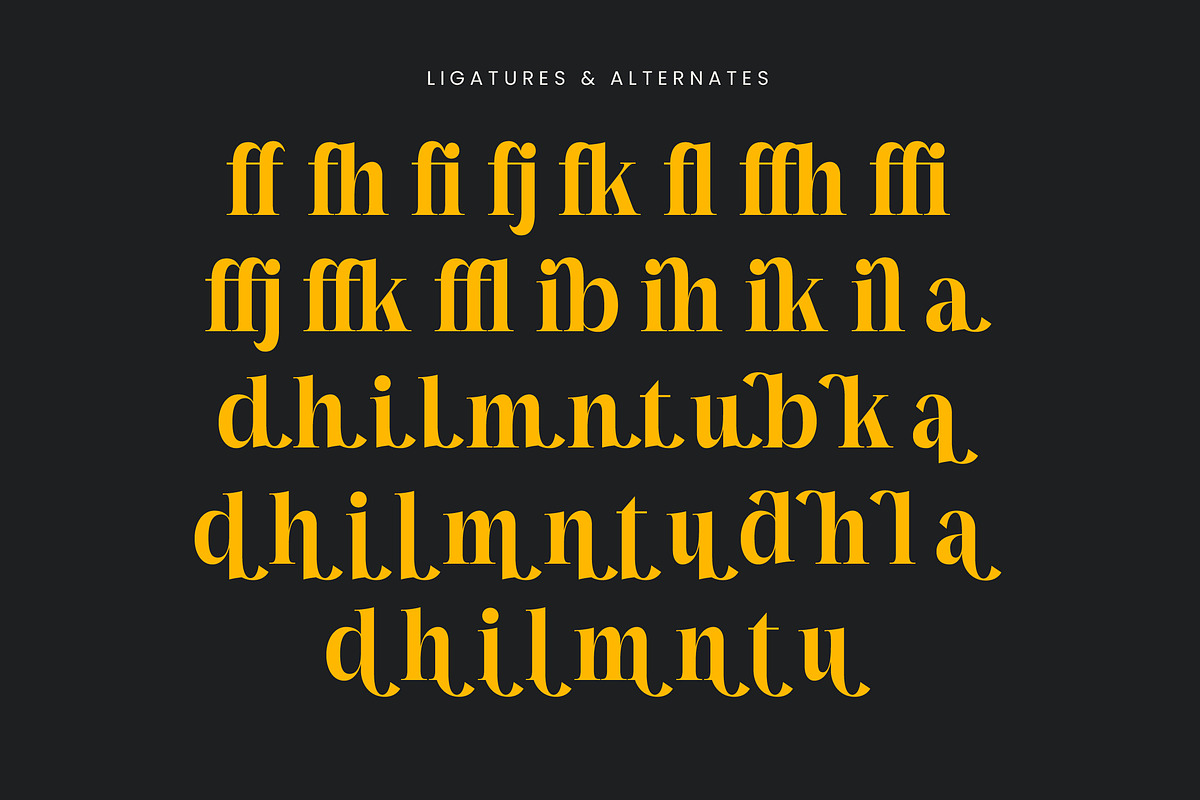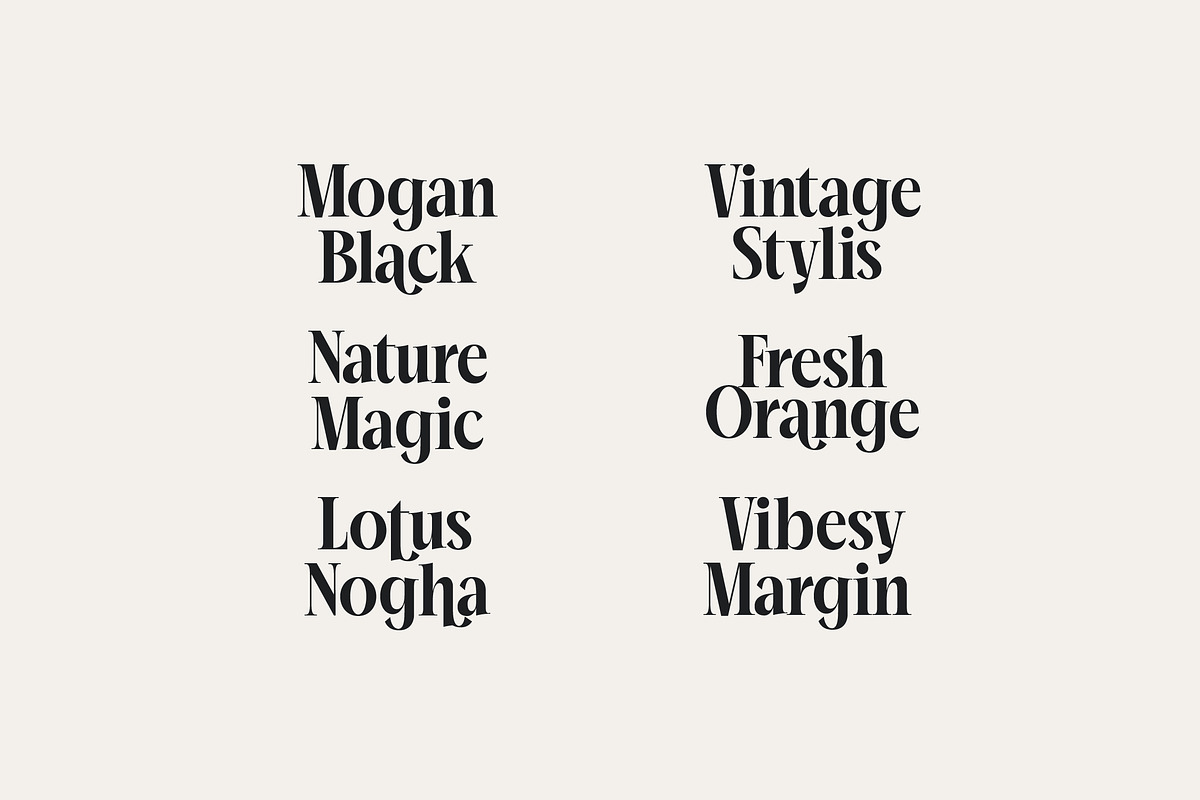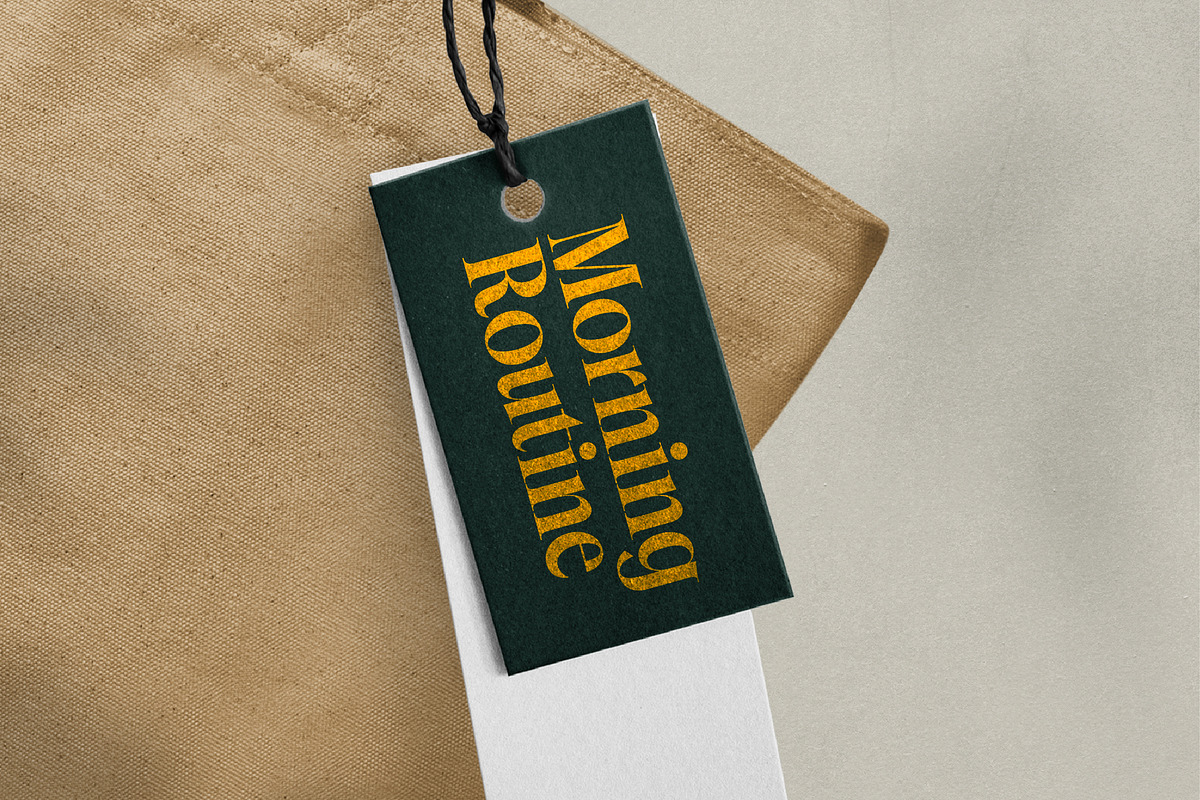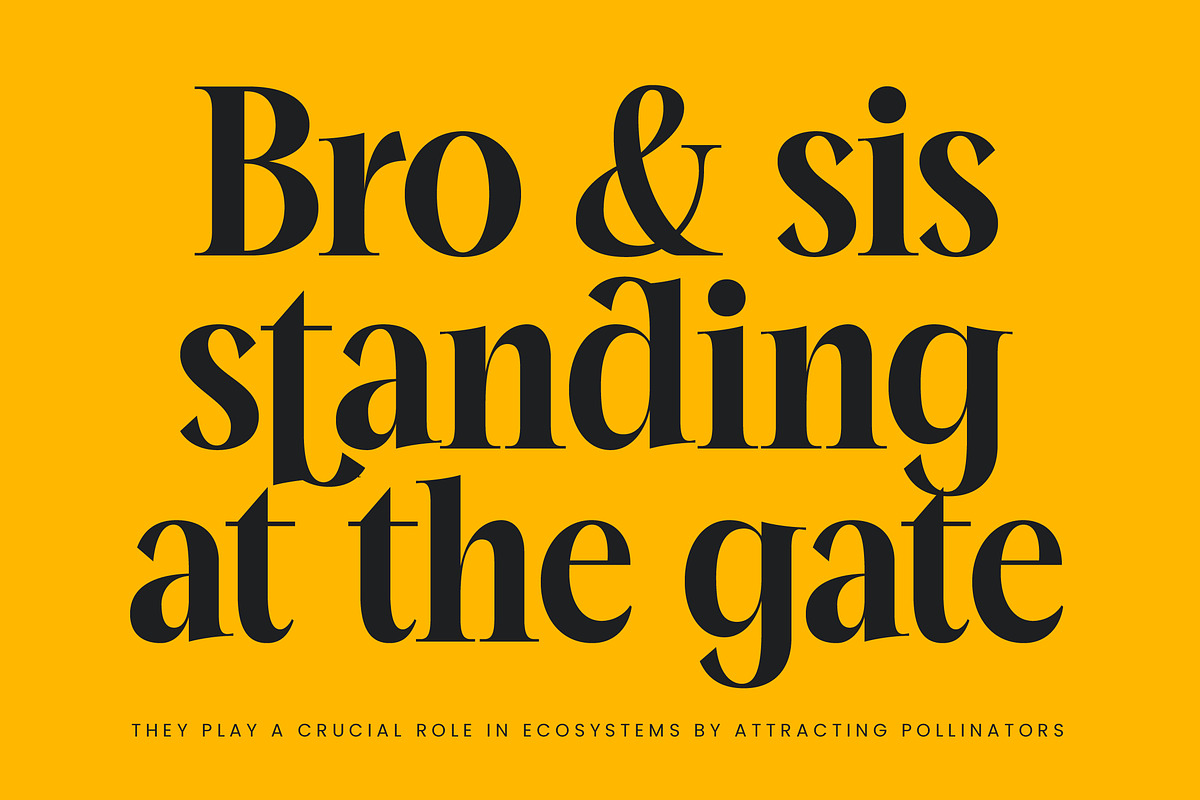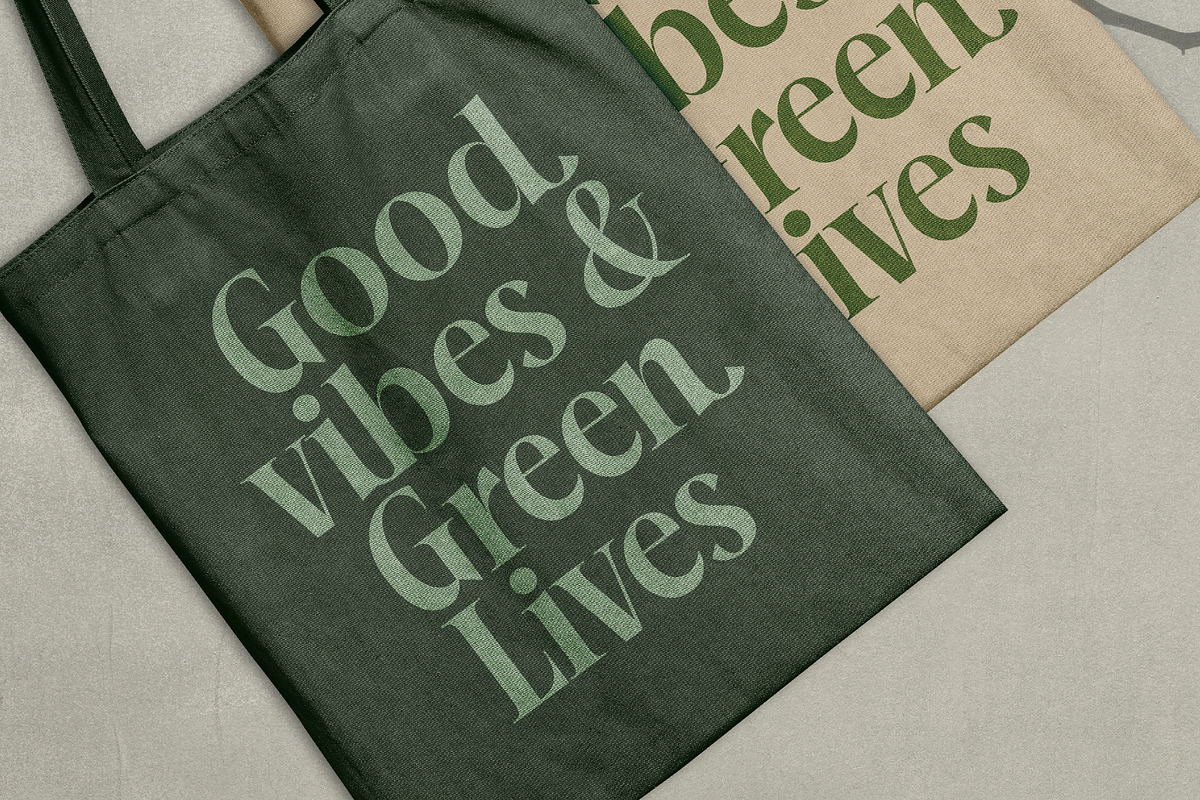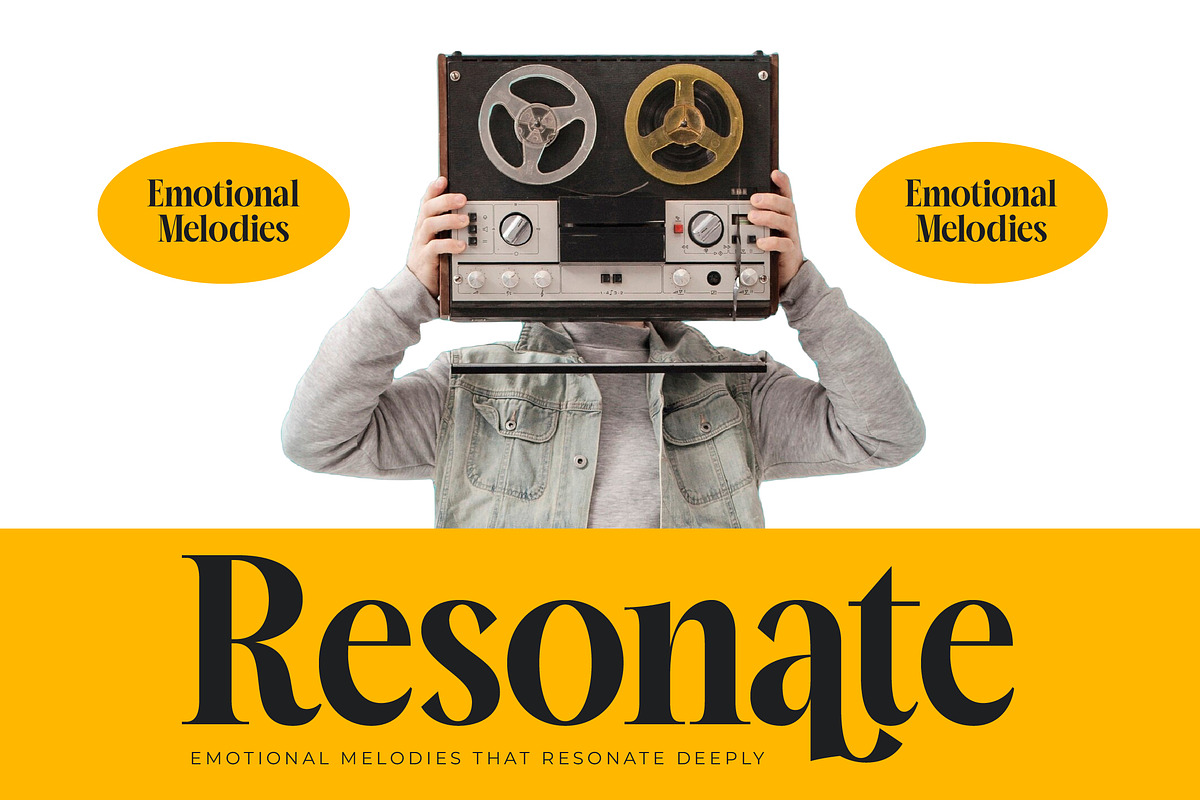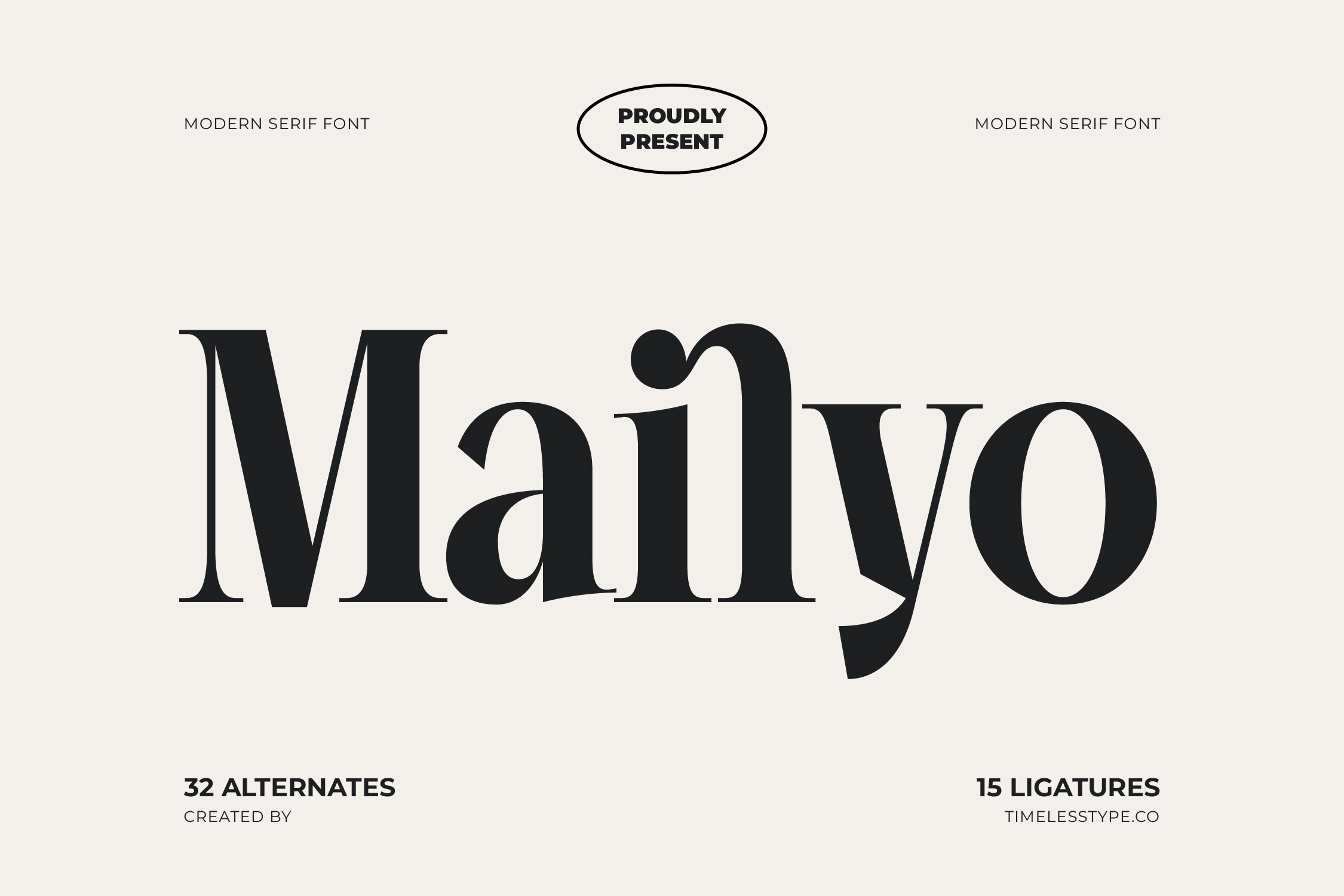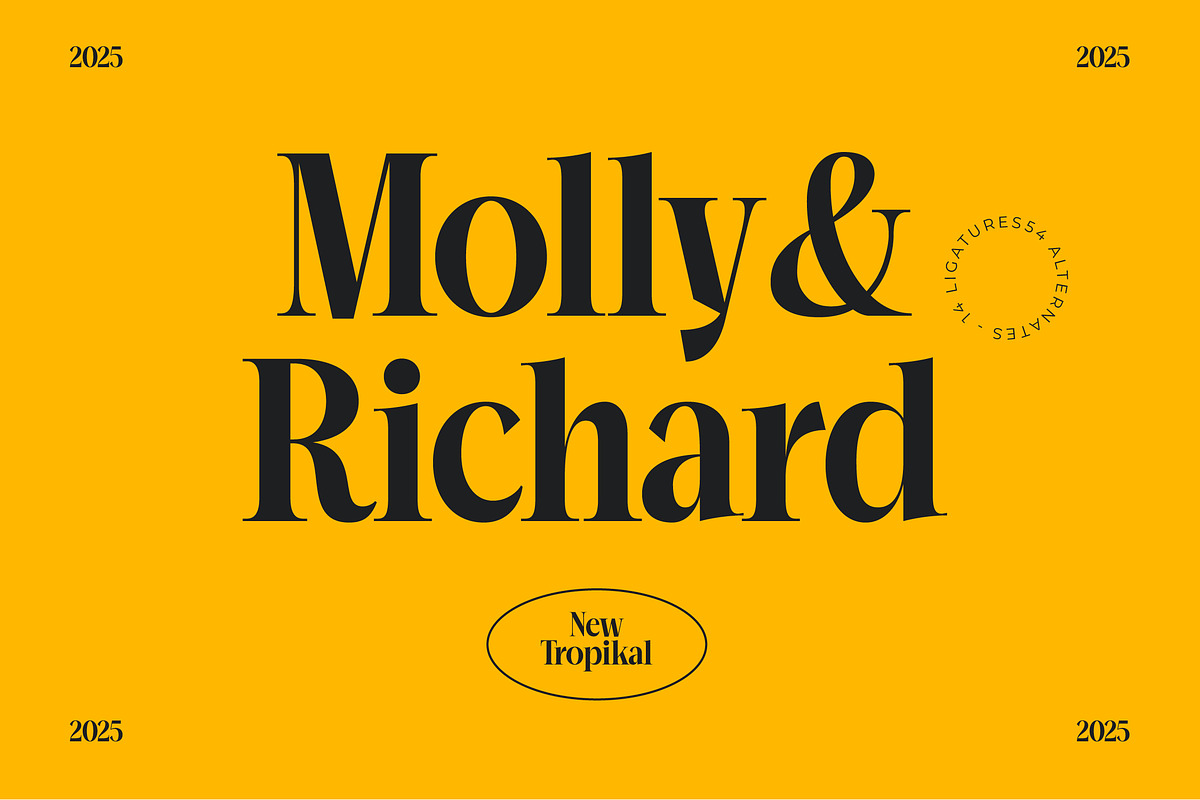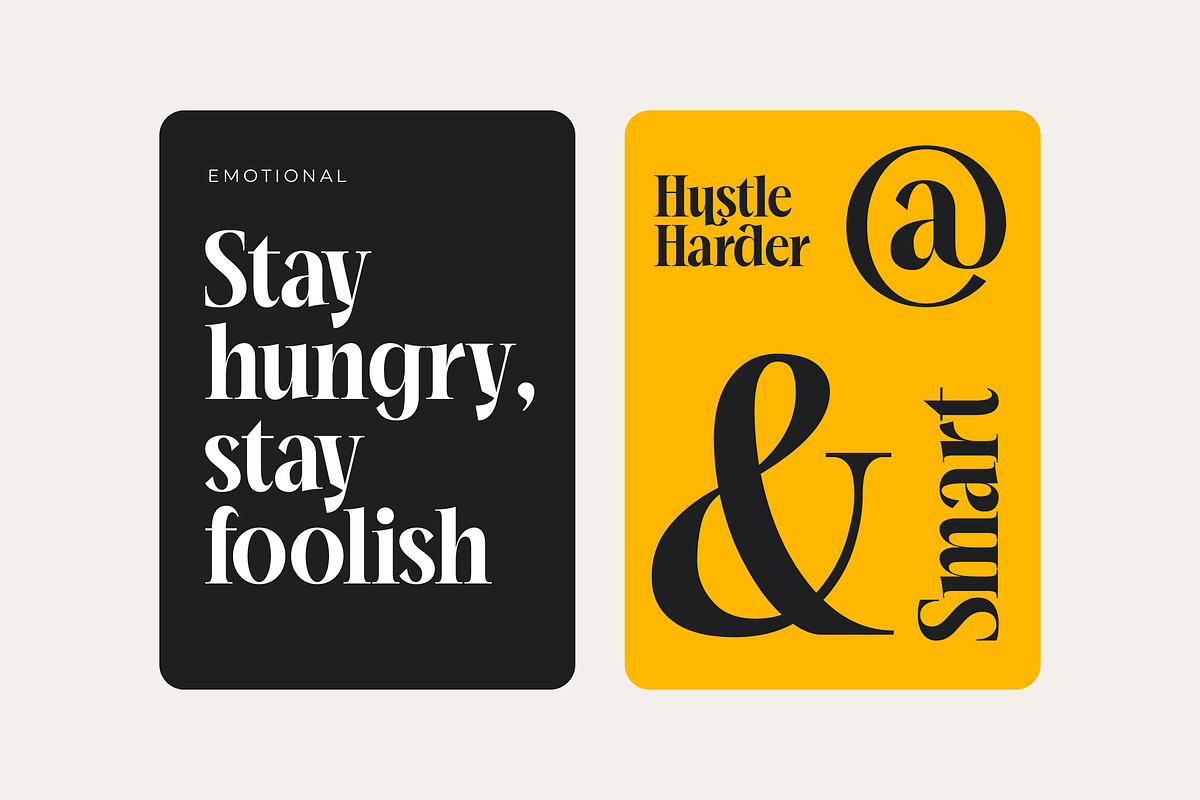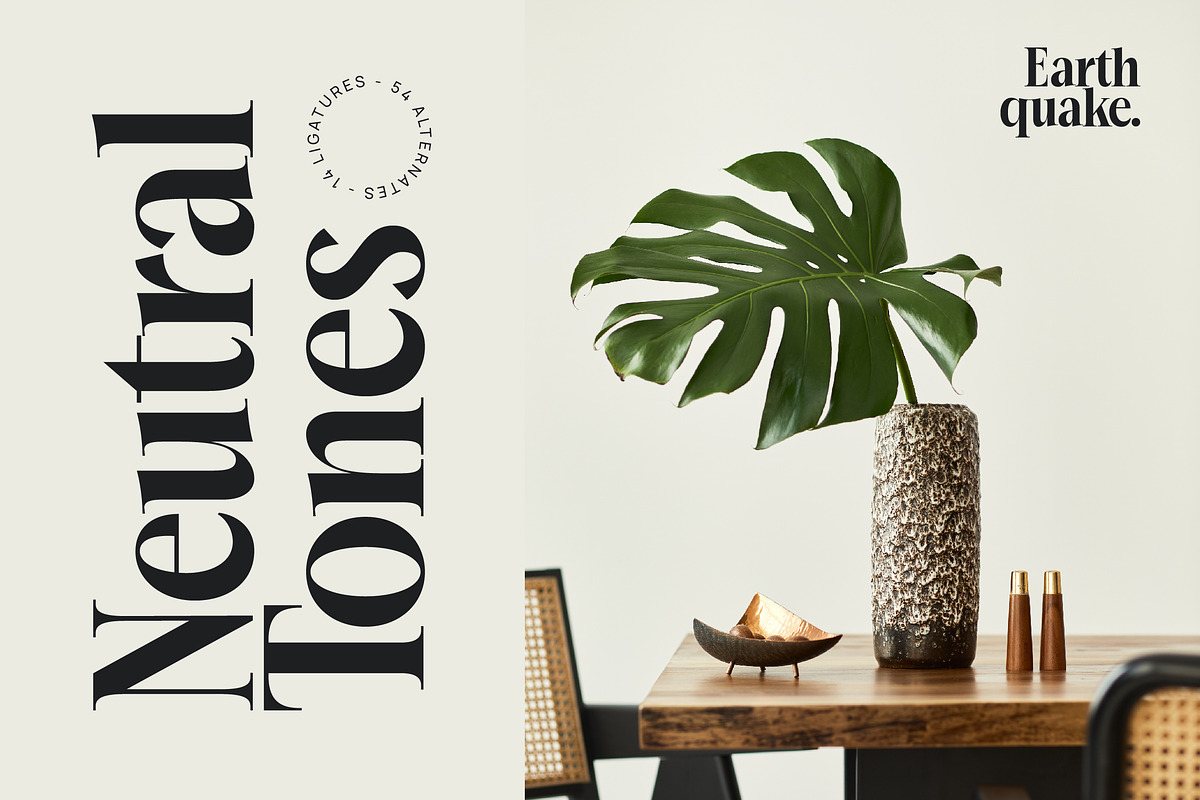
Mailyo Modern Serif Display Font
Mailyo is an exquisite expression of modern elegance, designed to command attention with its sophisticated silhouettes and fluid lines. It balances timeless grace with a bold, contemporary edge for creators who seek perfection in every detail.
Inspired by the high-fashion editorial layouts of Paris and the classic structure of vintage typography, this face captures an atmosphere of quiet luxury and refined artistry. Its unique curves and sharp serifs tell a story of heritage reimagined for the digital age.
This modern serif display is a masterclass in luxury typography, offering a high-contrast serif profile that ensures every letterform makes a significant branding impact. It functions as an essential editorial font for those who value distinctiveness and clarity in their visual communications.
Perfectly aligned with the current modern serif trend, this typeface meets the rising demand for editorial display fonts that feel both nostalgic and forward-thinking. It is the epitome of character-driven typography that stands out in a crowded and noisy digital landscape.
This versatile powerhouse is ideal for high-end logo design and comprehensive branding projects where a strong identity is paramount. From striking editorial spreads and premium packaging to romantic wedding stationery and sleek fashion campaigns, it delivers unmatched style.
The font includes a generous collection of alternates and sophisticated ligatures to help you create custom, hand-lettered looks effortlessly. With full support for multilingual layouts and a wide range of international characters, it provides global reach with localized flair.
- Ligature 15 Alternate 32